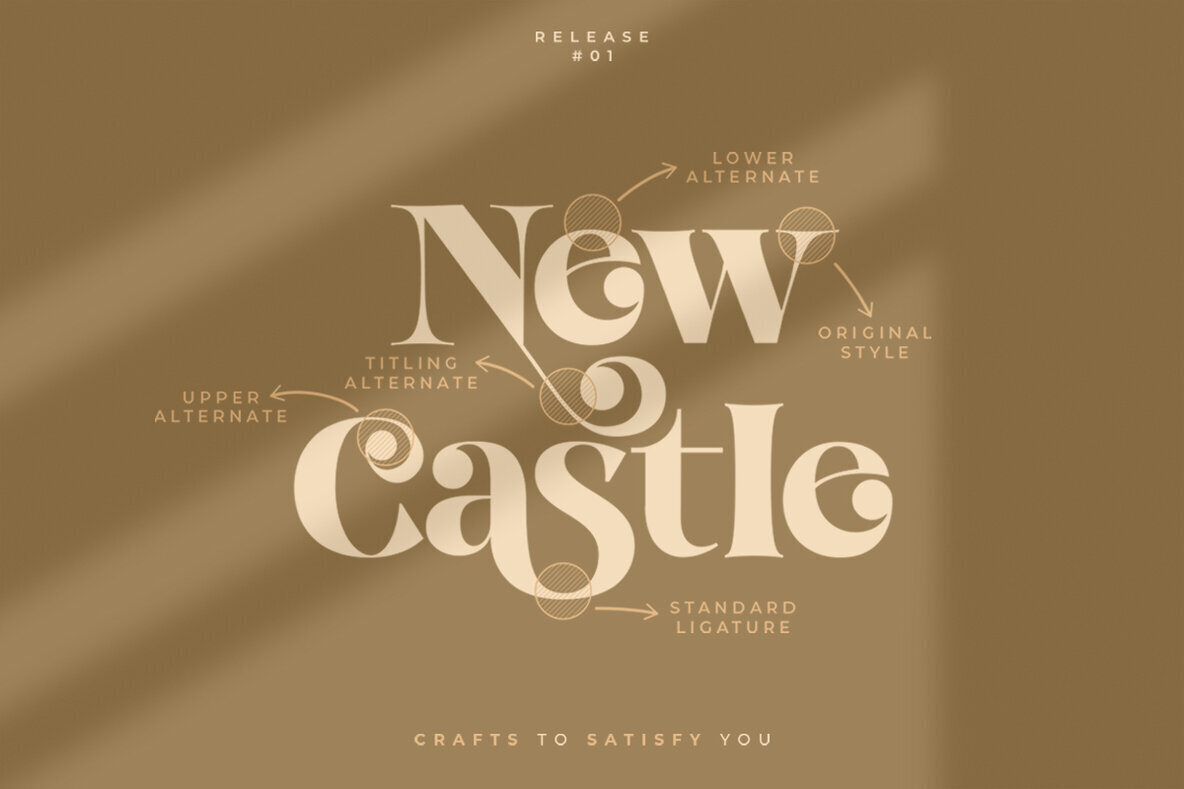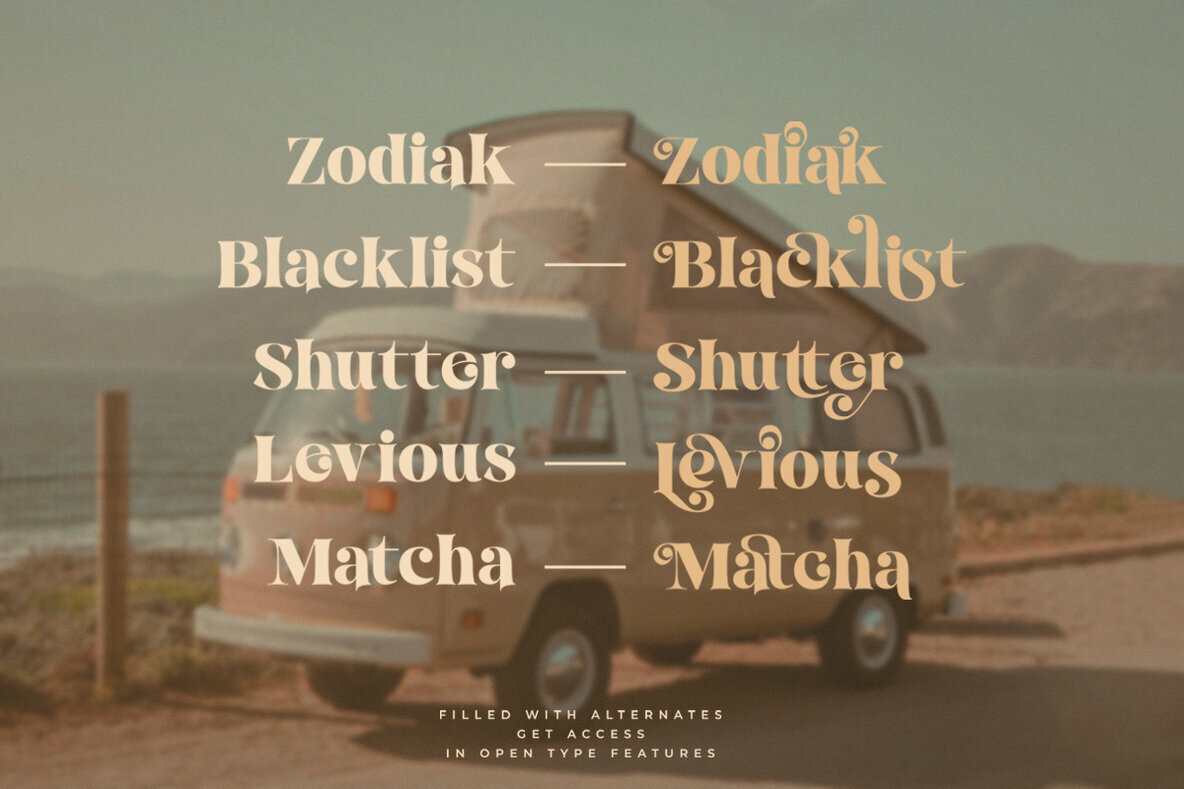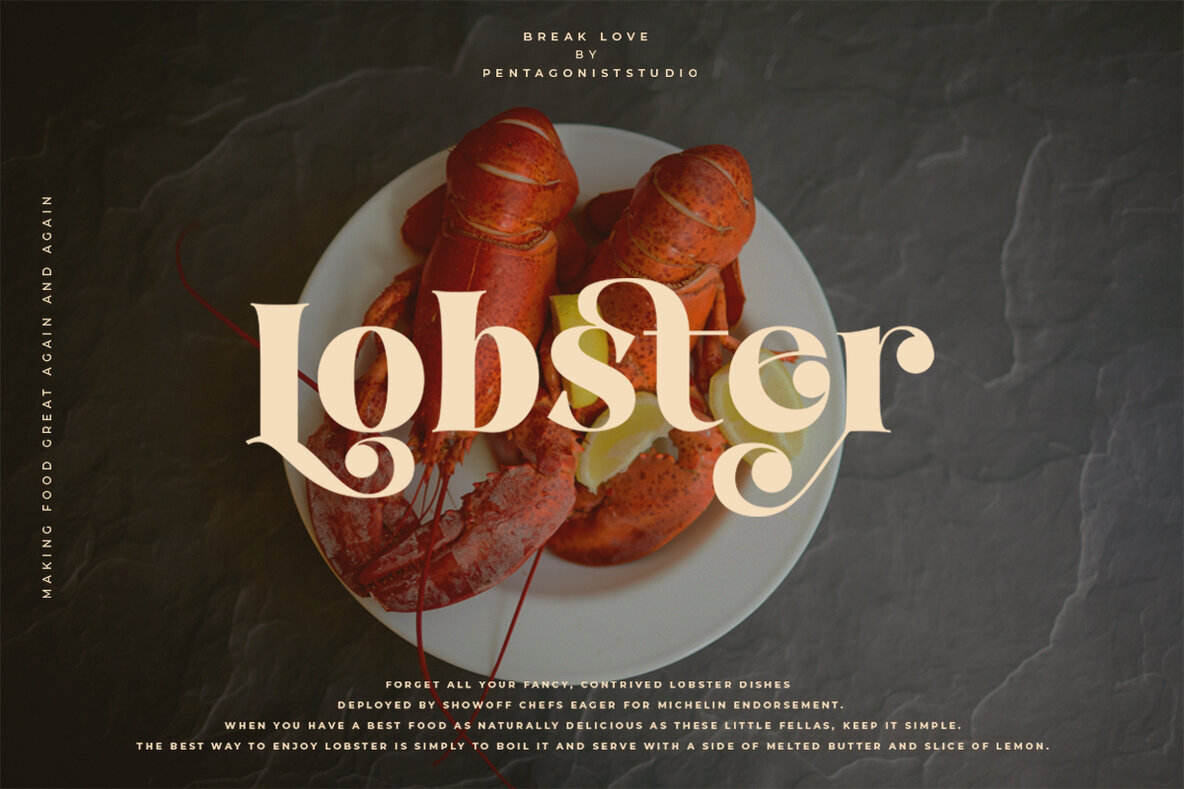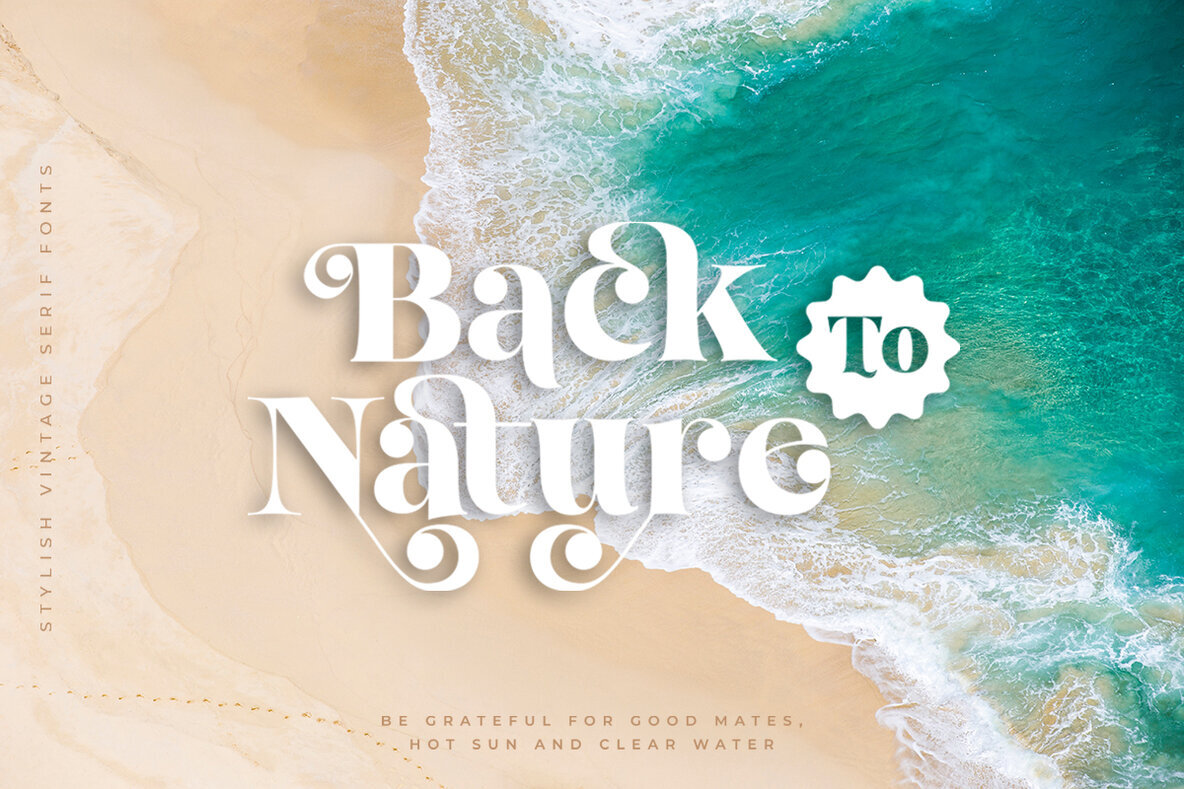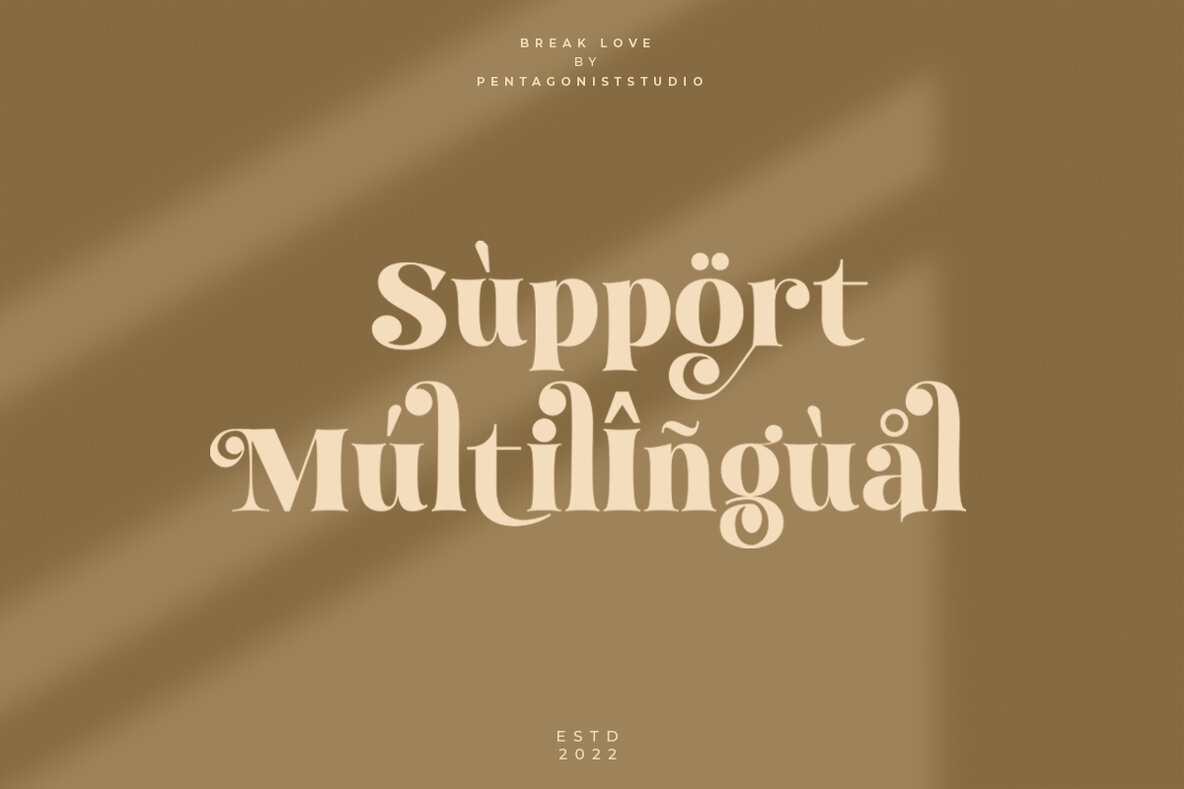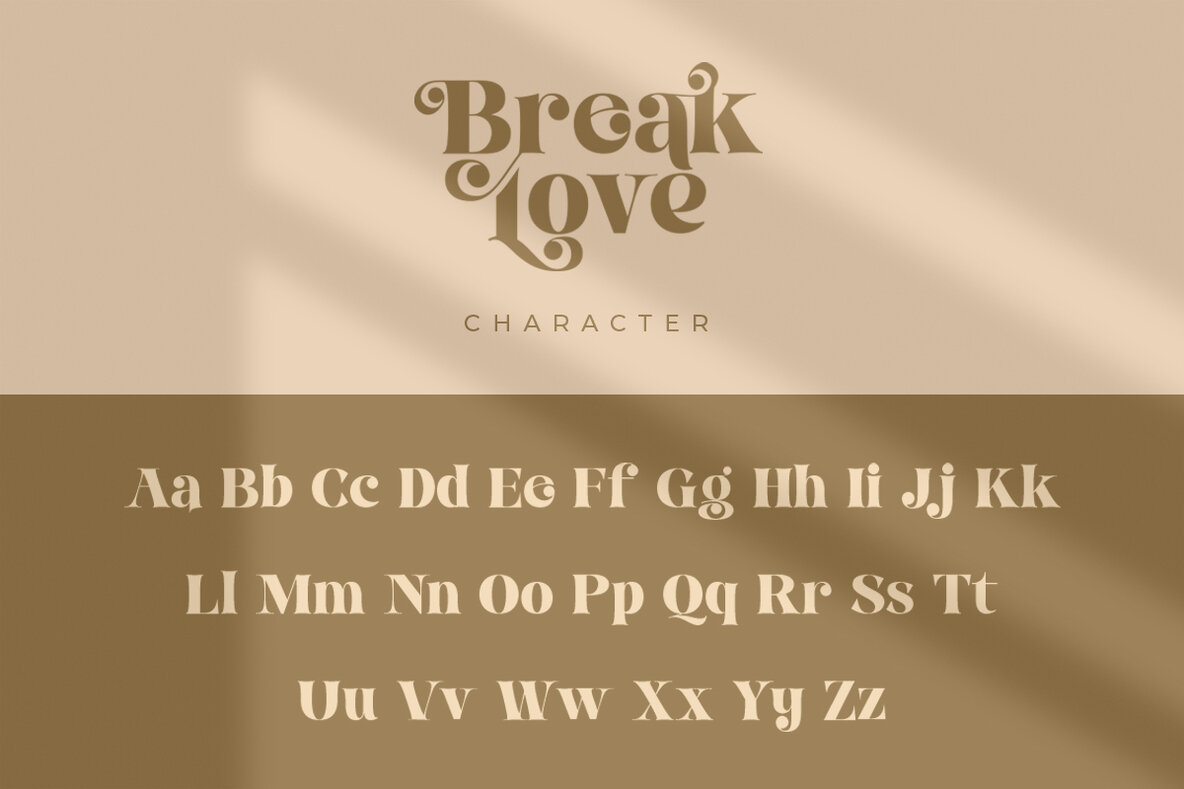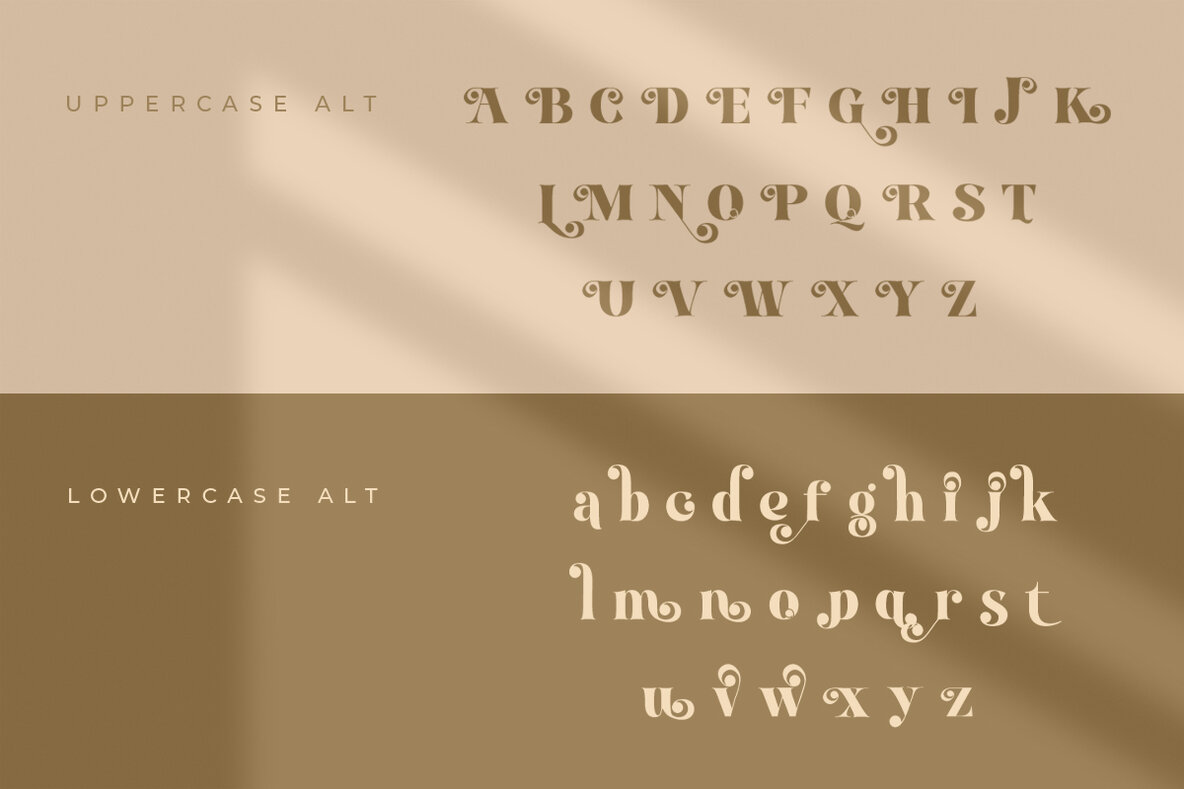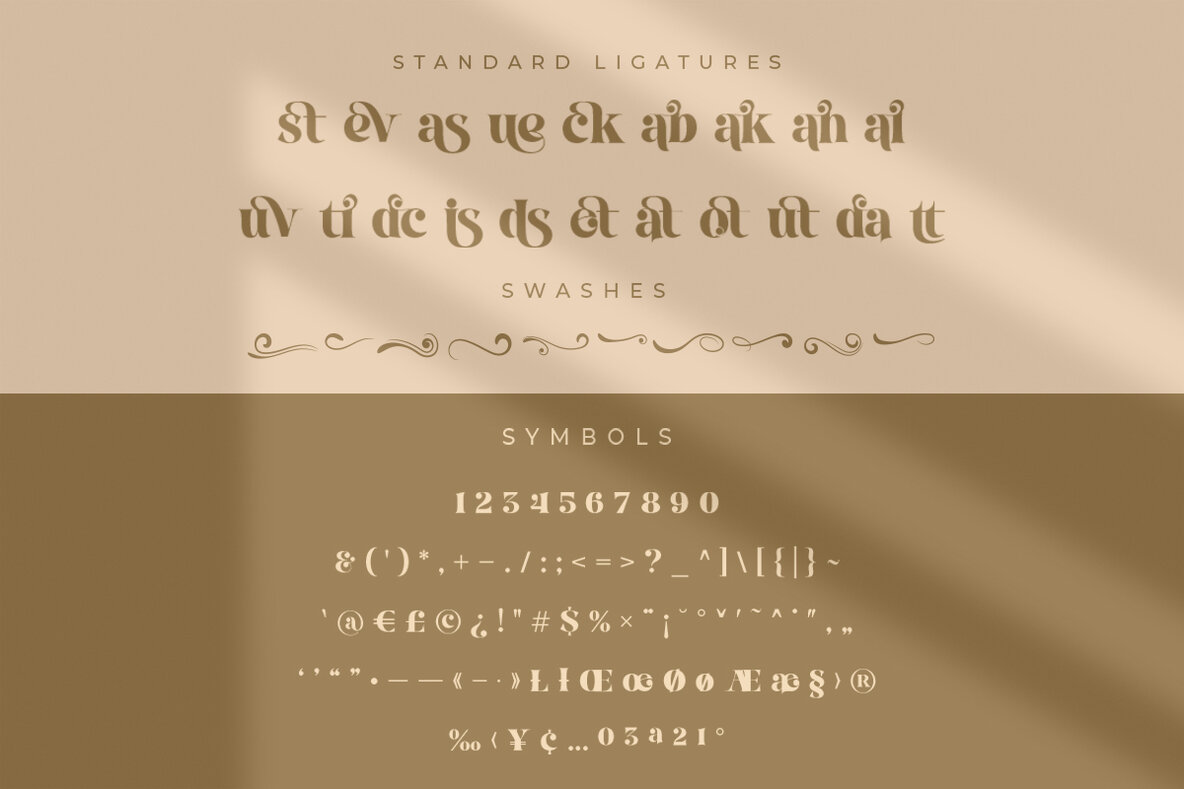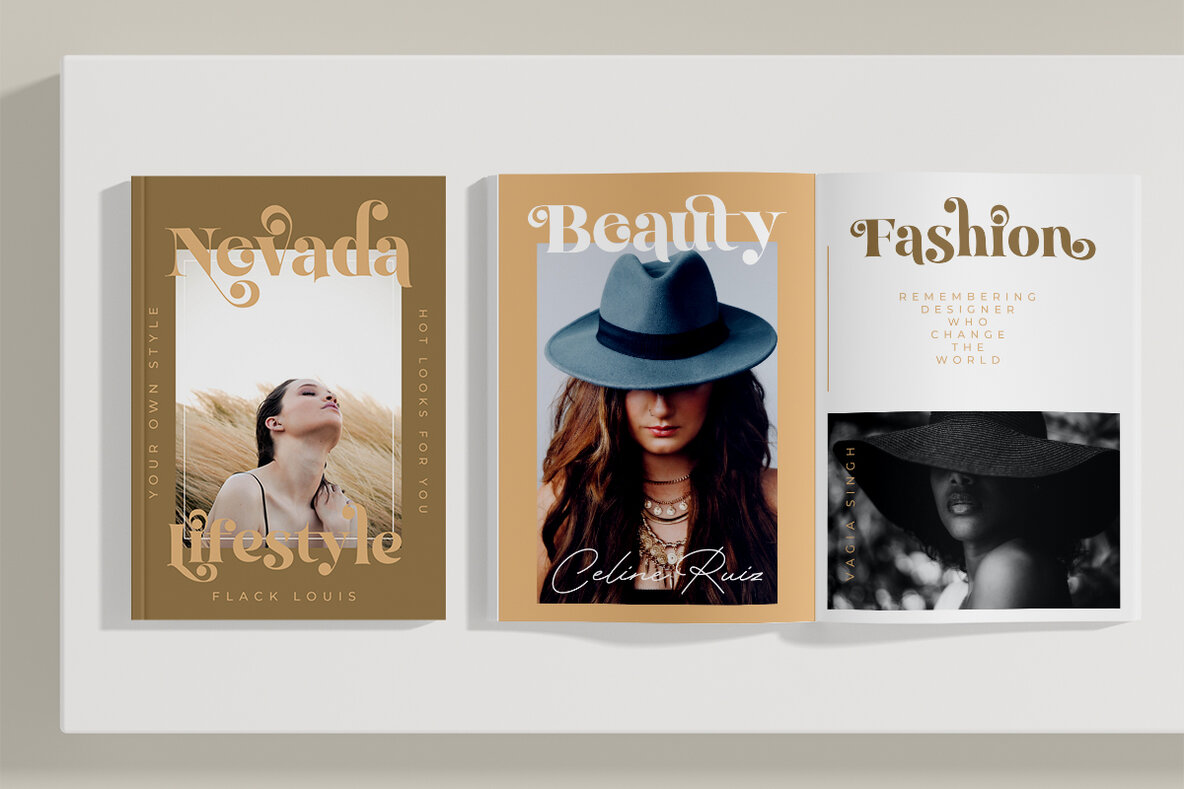
Break Love Font
Break Love
Break Love captures the essence of nostalgia with an elegant vintage feel, inspired by the timeless style of past eras. Its retro design brings a refined touch to any creative project, making it ideal for those who appreciate the sophistication of vintage typography. This typeface strikes a balance between stylized character and timeless elegance, perfect for a range of applications from branding to editorial design.Break Love: A Classy Retro Typeface